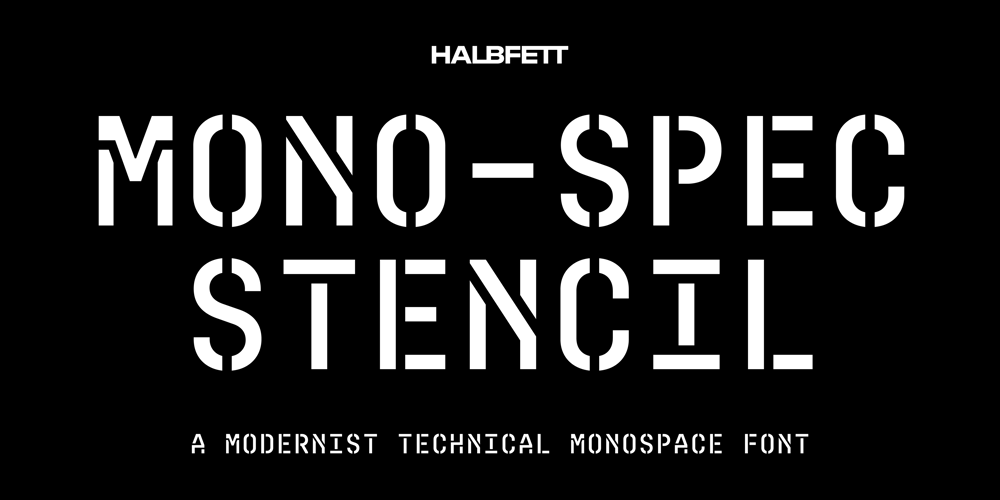
Mono Spec Stencil Font Family was designed by Deni Anggara and published by Halbfett. Mono Spec Stencil contains 5 styles and family package options. Mono-Spec Stencil is a monospaced family of sans-serif type. At least in default settings, all characters across the typeface share a common width, which is immediately noticeable for its condensed nature. Mono-Spec Stencil is a sibling of a non-stencil family, simply named Mono-Spec. Characters in each are just as wide, allowing Mono-Spec Stencil to be used together with Mono-Spec, as a secondary typeface. As a typeface whose characters are stencil-shaped, this design channels the spirit of resistance and street culture. When you look at the family, remember that it ships in two different formats. Depending on your preference, you can install the typeface as a single Variable Font or use the family’s five static OpenType font files instead. Those weights run from Light through Bold. While the static-format fonts offer a good intermediary-step selection, users who install the Variable Font have vastly greater control over their text’s stroke width. The Mono-Spec Stencil Variable Font’s weight axis allows users to differentiate between almost 1,000 possible font weights. That enables you to fine-tune your text’s exact appearance on-screen or in print. Whatever format you choose, the Mono-Spec Stencil fonts are equipped with several OpenType features. The most striking of these can be activated via a Stylistic Set. That will replace several letters – like “B”, “E”, “F”, “H”, and “I” with double-width alternates. Those alternates take up as much space as two characters placed next to each other otherwise word. The effect of Mono-Spec Stencil’s double-width alternates is striking, and their use strikes a strong chord in any display typography applying them.